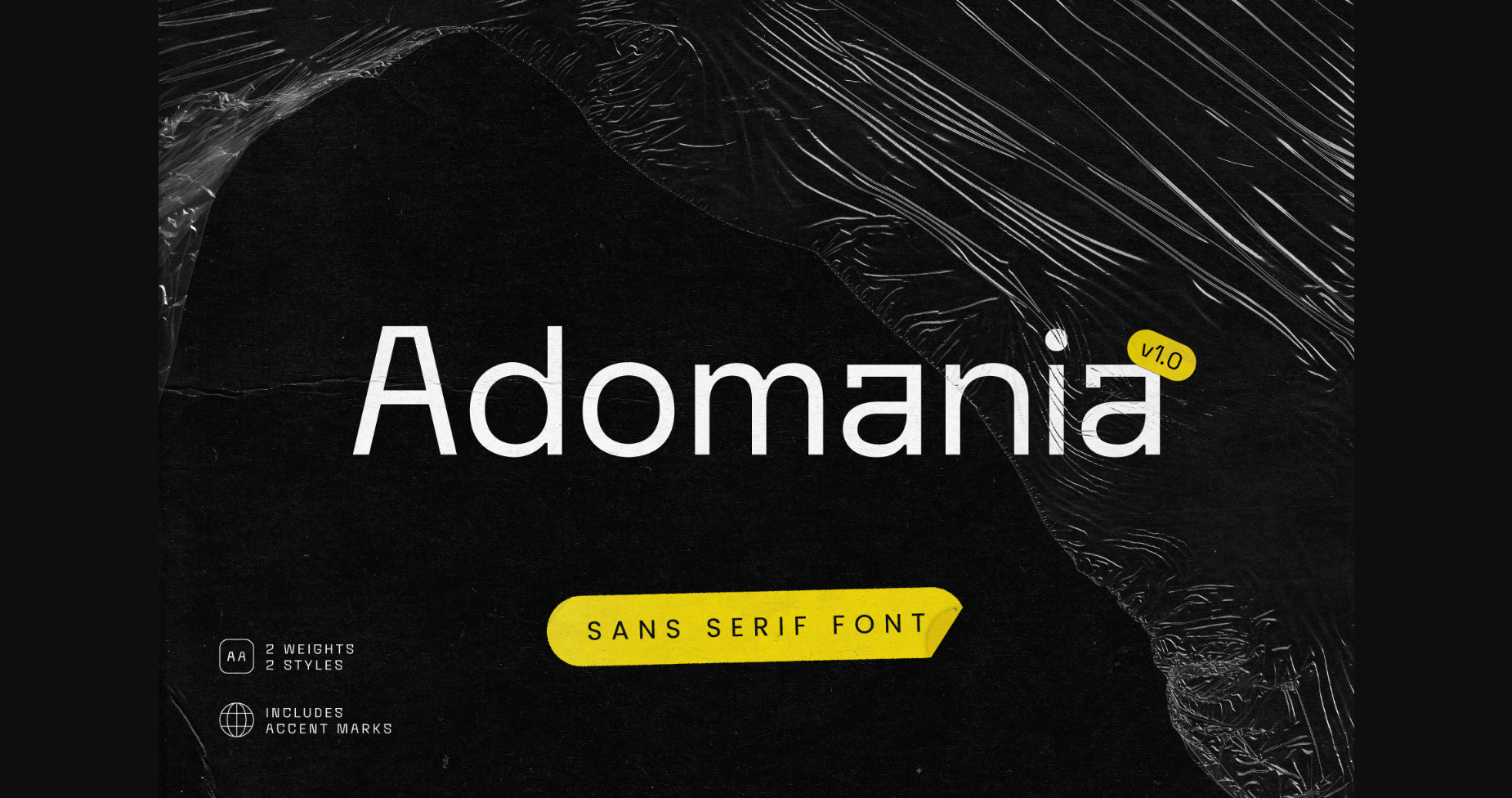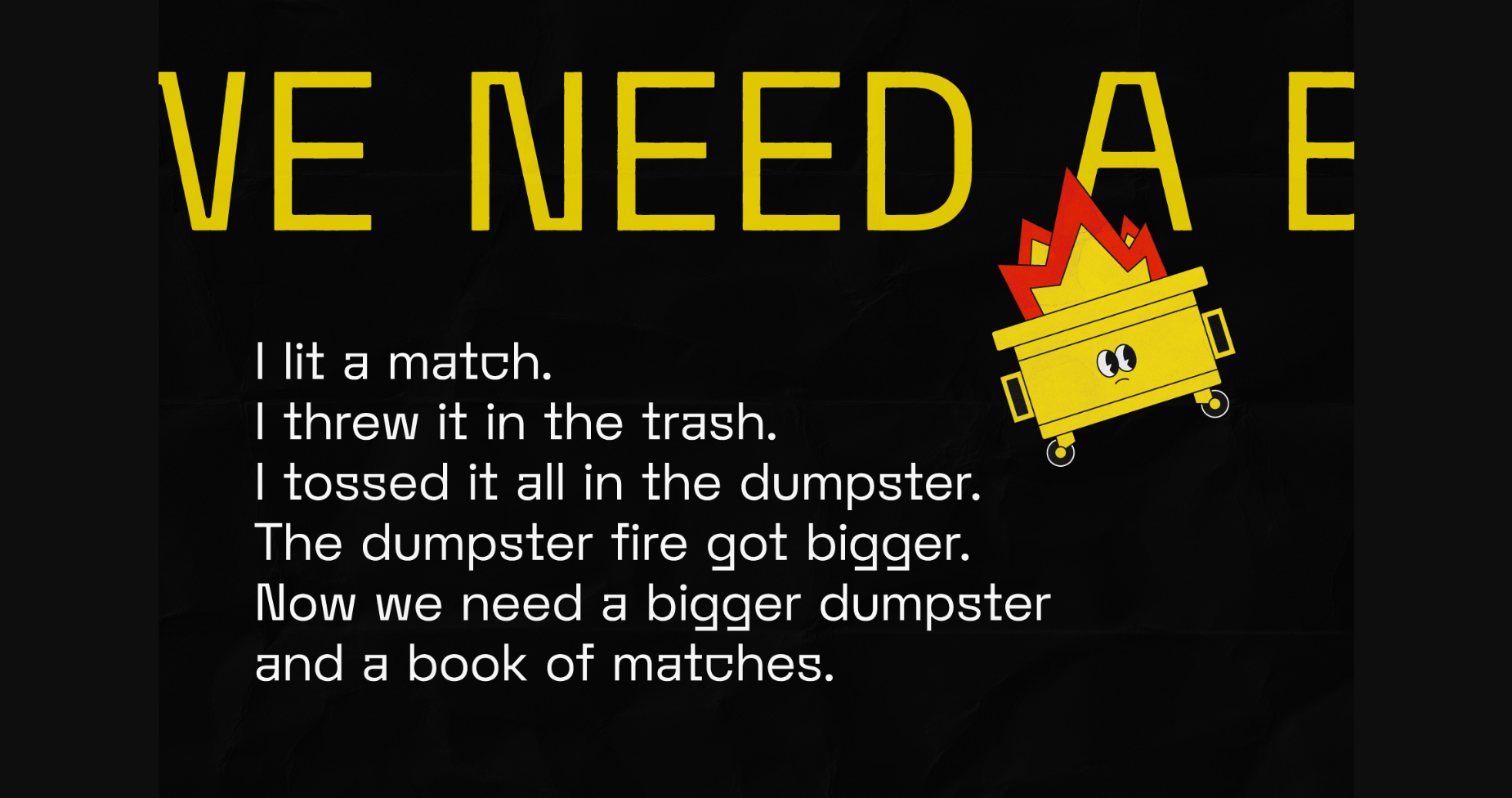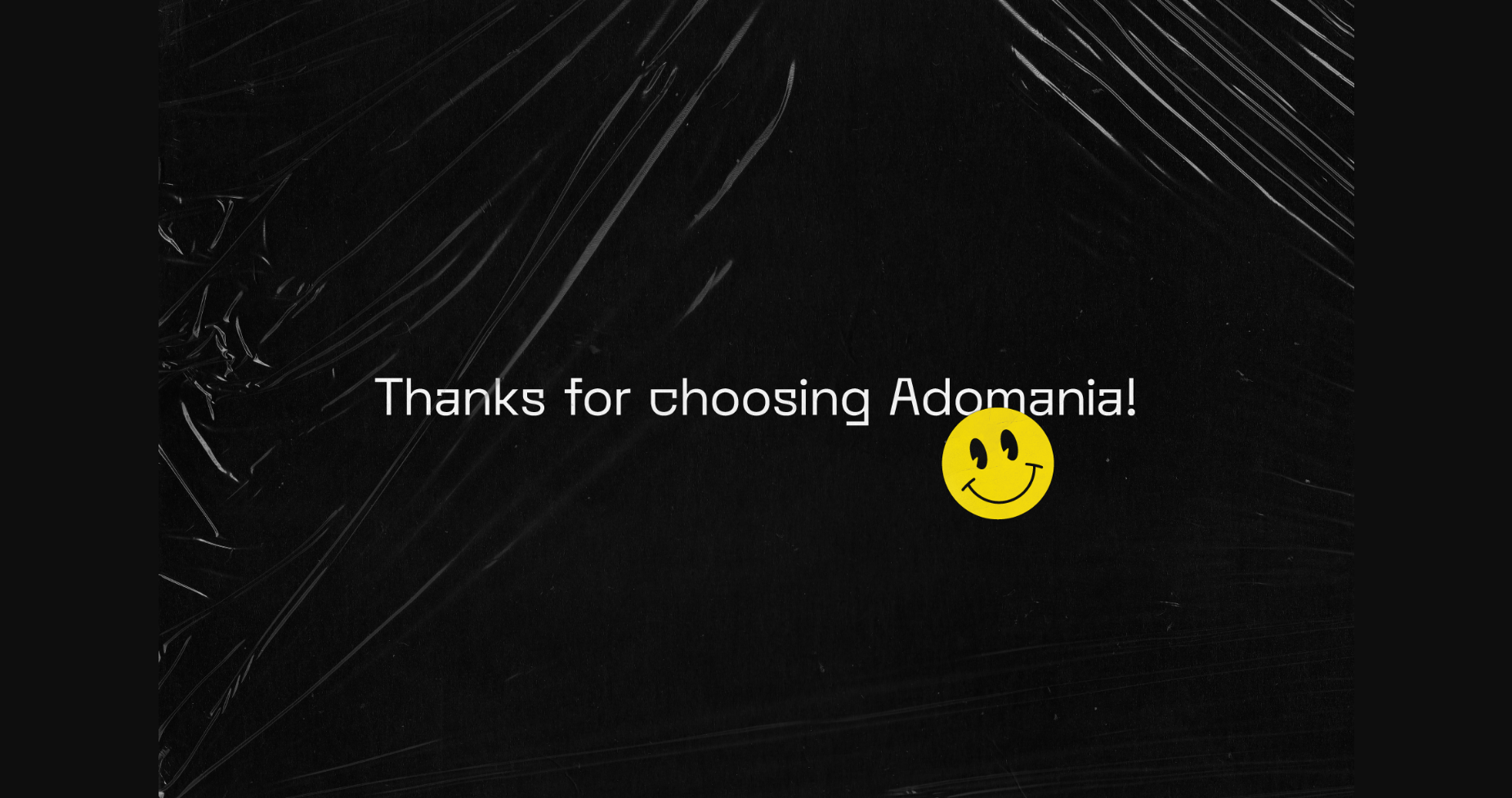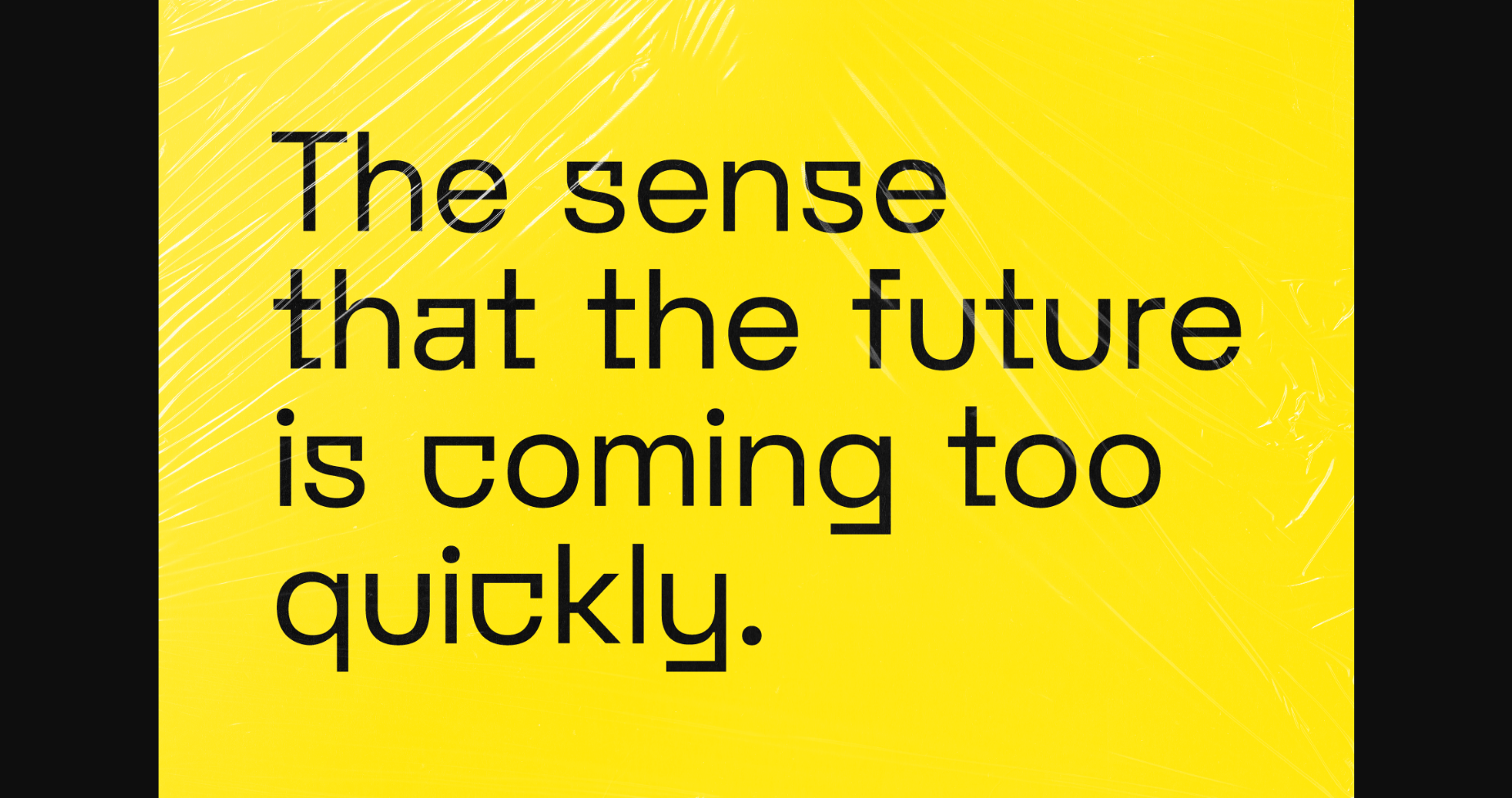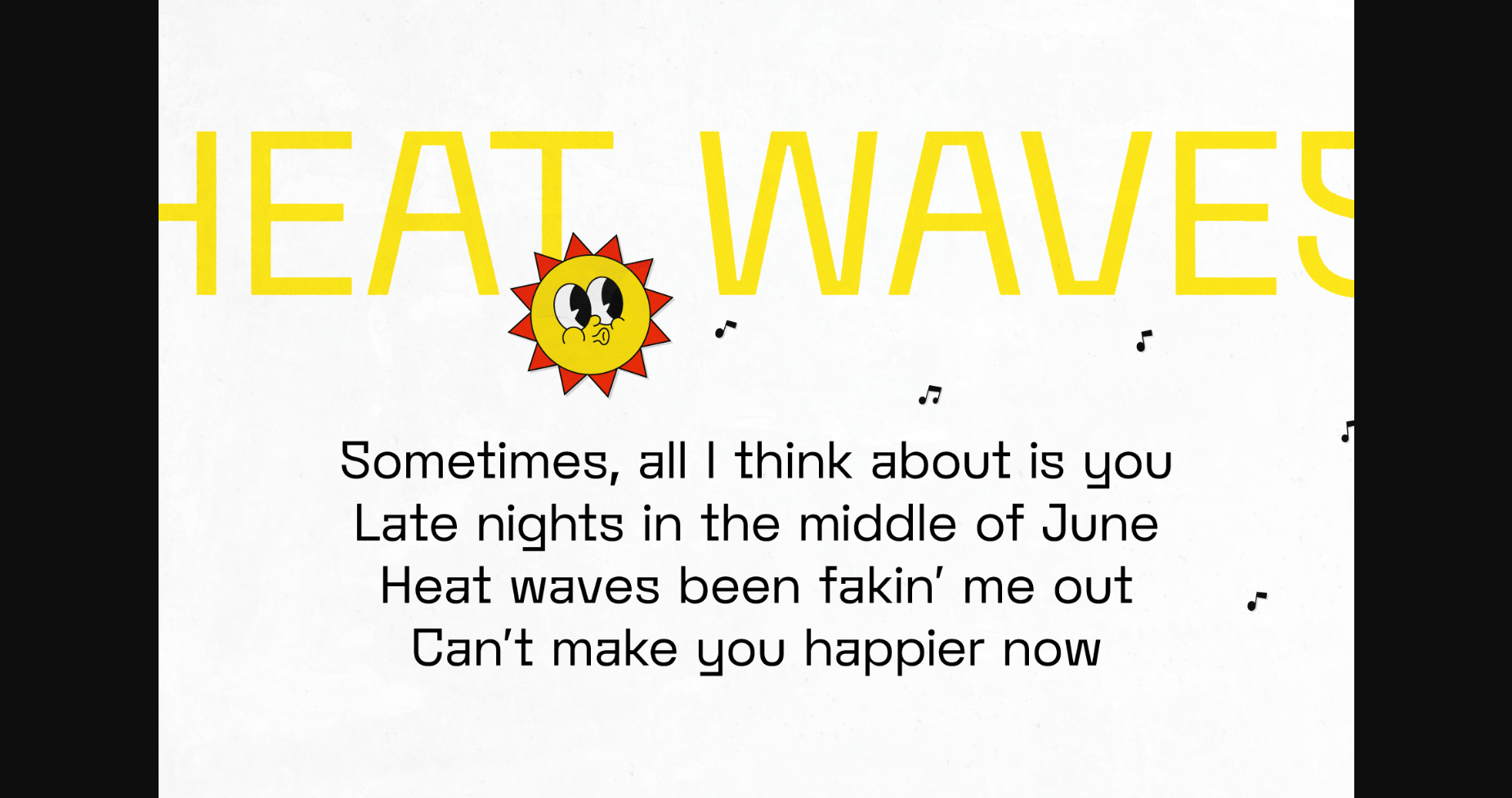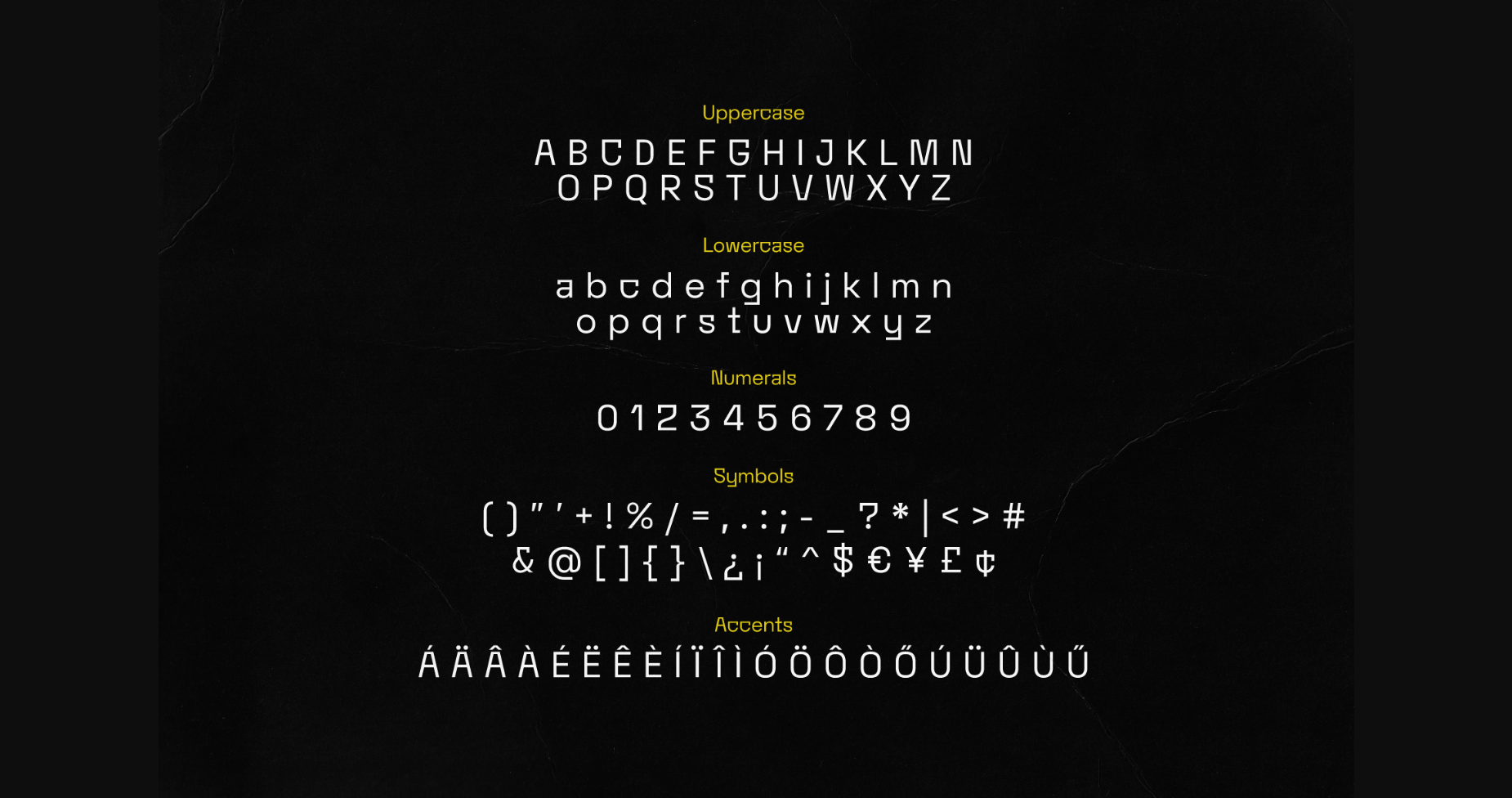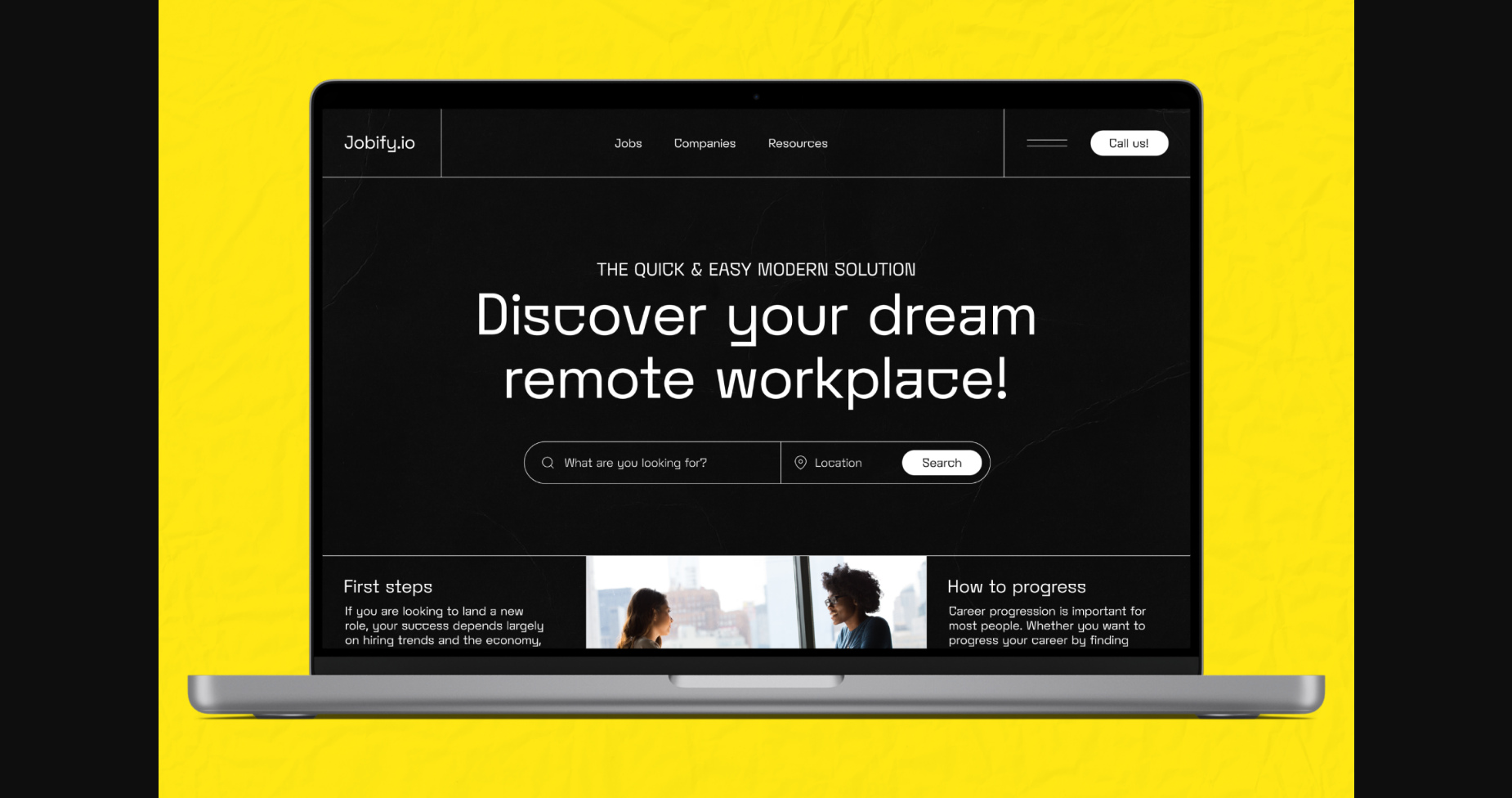
About Adomania Font
Adomania is an experimental, yet professional sans serif font with 2 weights & 2 styles. It also includes plenty of symbols and accents for accessibility.
Adomania is a great choice for branding projects that need just a bit of spice in their otherwise clean and professional typography. It’s great for web design, logos, headings & short-form editorial work.
What does “Adomania” mean? The sense that the future is arriving ahead of schedule.